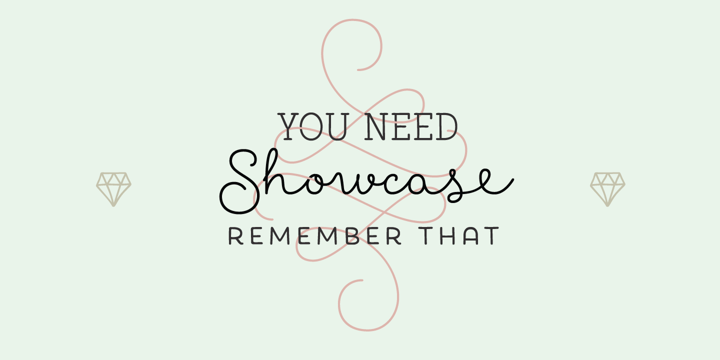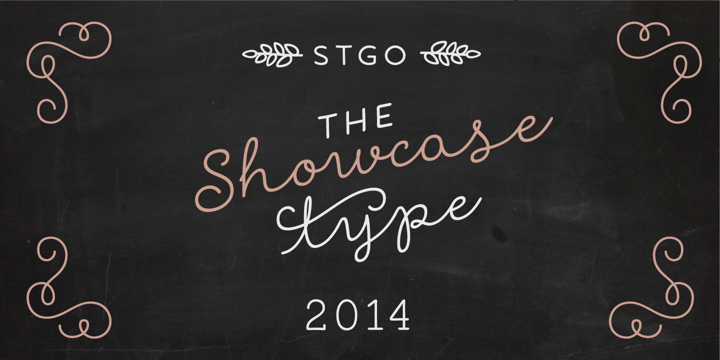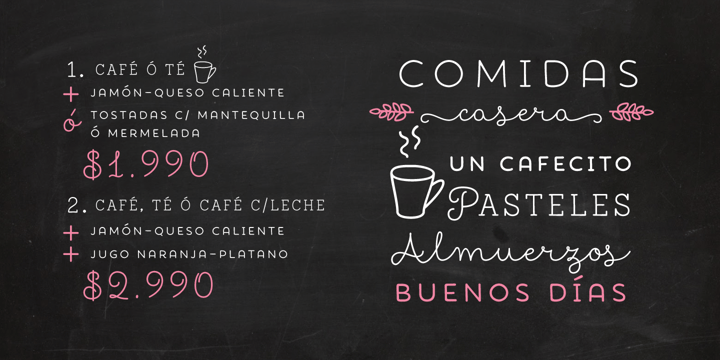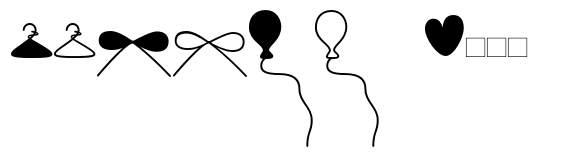
Showcase
por Latinotype
La familia tipográfica Showcase fue diseñada por Paula Nazal Selaive, Daniel Hernández y publicada por Latinotype. Showcase contiene 8 estilos y opciones de paquete familiar.
Showcase, the new typeface of Daniel Hernandez and Paula Nazal is a handmade font consisting of a set of types that are composed of four styles, one script, one sans, a slab, sans mini and finally a set of ornaments and dingbats, all made to work together in the same language. It’s inspired by a pen that writes different typefaces and ornaments, and casually reaches into a harmonious family. Showcase is very easy to use and allows great versatility, can be used both in a magazine as a restaurant, through windows, cafes, and really anyway you can think of! Photography by
Diseñadores: Paula Nazal Selaive, Daniel Hernández